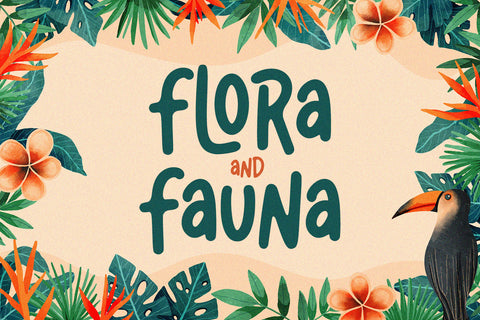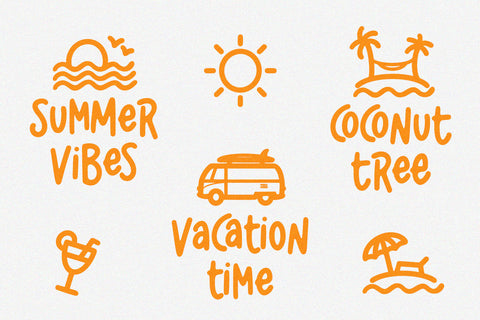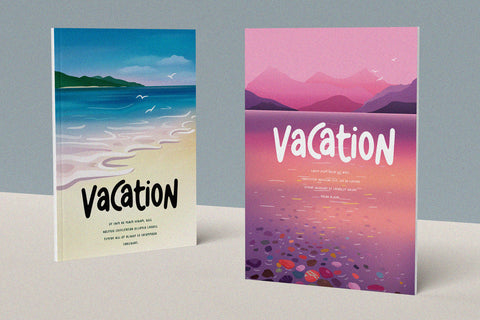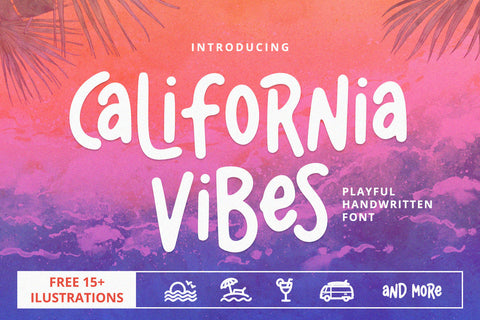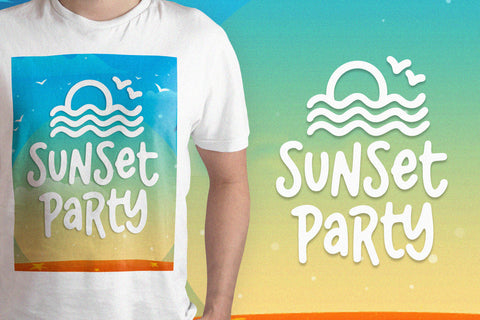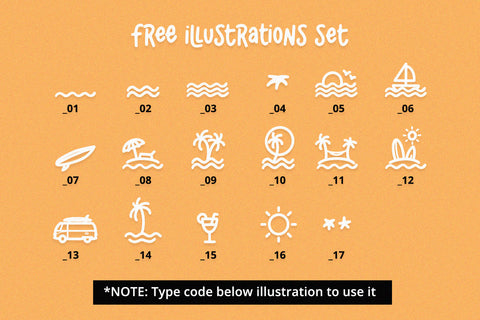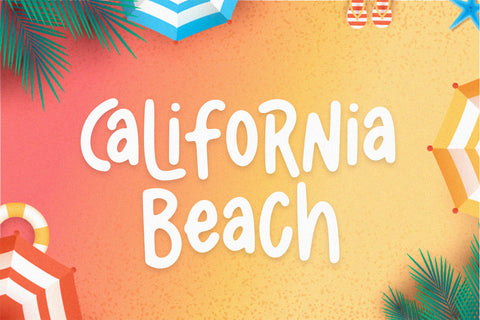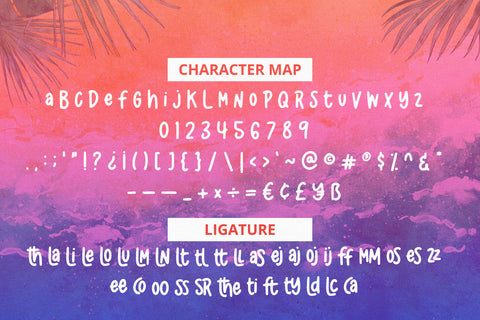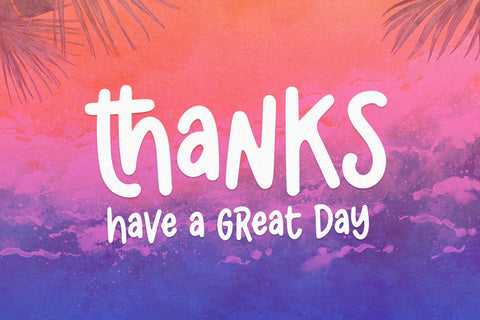
California Vibes - Playful Handwritten Font
California Vibes is a playful handwritten font with authentic and playful feels. It will be perfectly used for Branding, Logo Design, Lettering, Logotype, Clothing, Poster, magazine, packaging, posters, shopping bags, t-shirts, book covers, photography, special events and other design project.